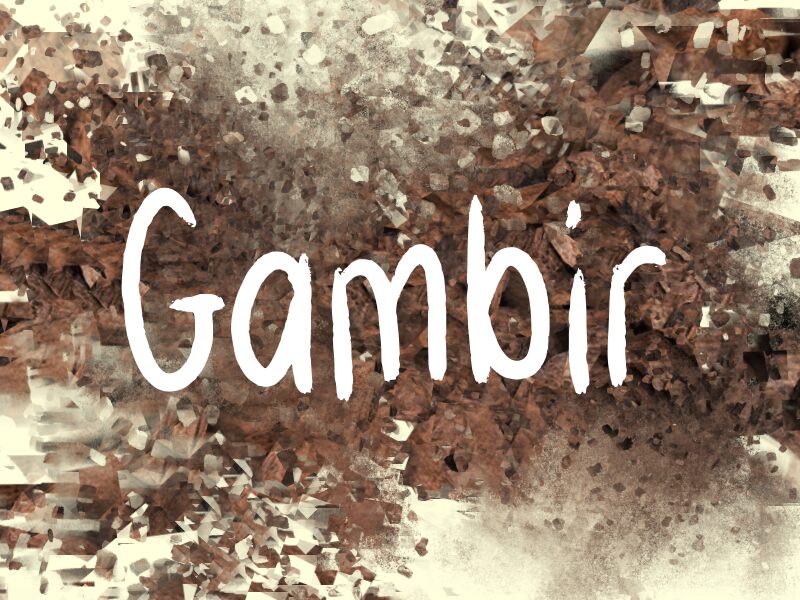
Gambir
Gambir is a captivating handwritten font that exudes personality and warmth. Its unique condensed style boasts a distinct fluidity, creating an intimate yet bold presence on the page. The irregular strokes and playful curves give it an engaging character, making it feel both artistic and approachable.
Visually striking, Gambir draws attention while maintaining readability, ensuring your message stands out without sacrificing clarity. This enchanting font is perfect for creative projects like invitations, branding materials, or social media graphics where a personal touch is desired. Its aesthetic appeal lies in its ability to communicate authenticity and creativity effortlessly, making it a versatile choice for designers seeking to infuse their work with charm and individuality.